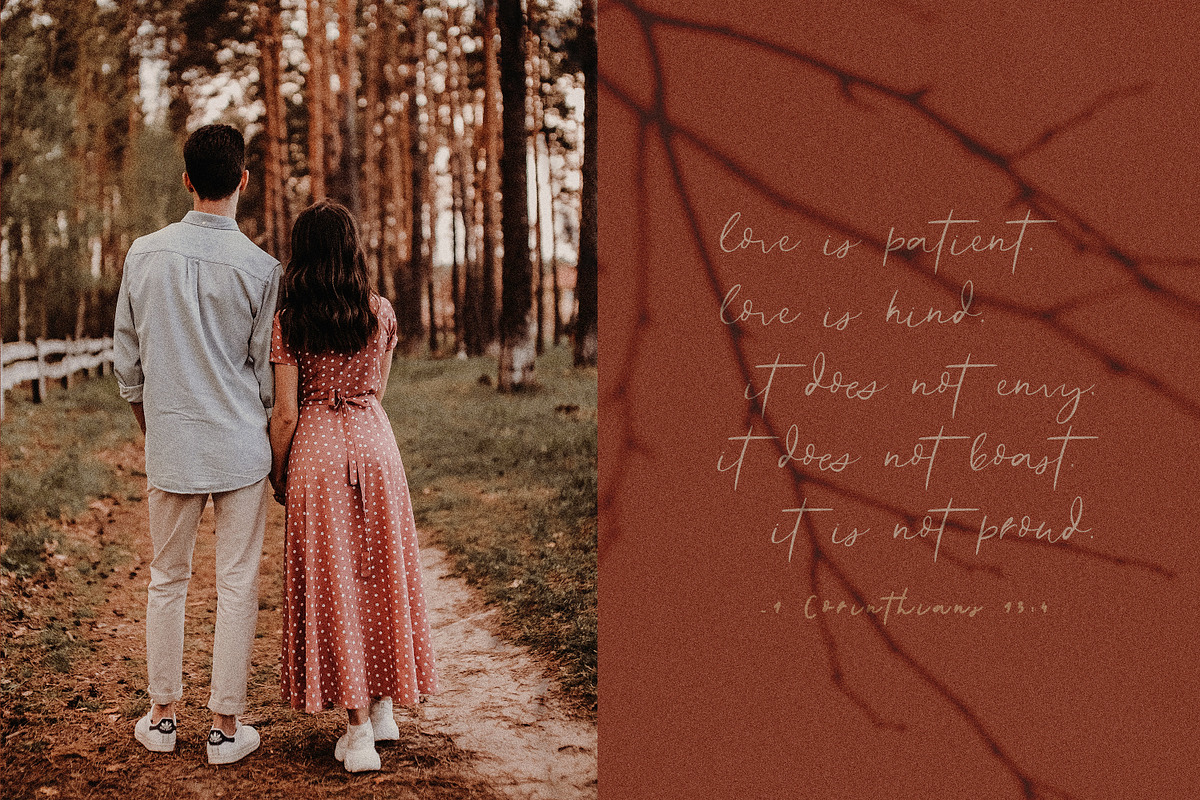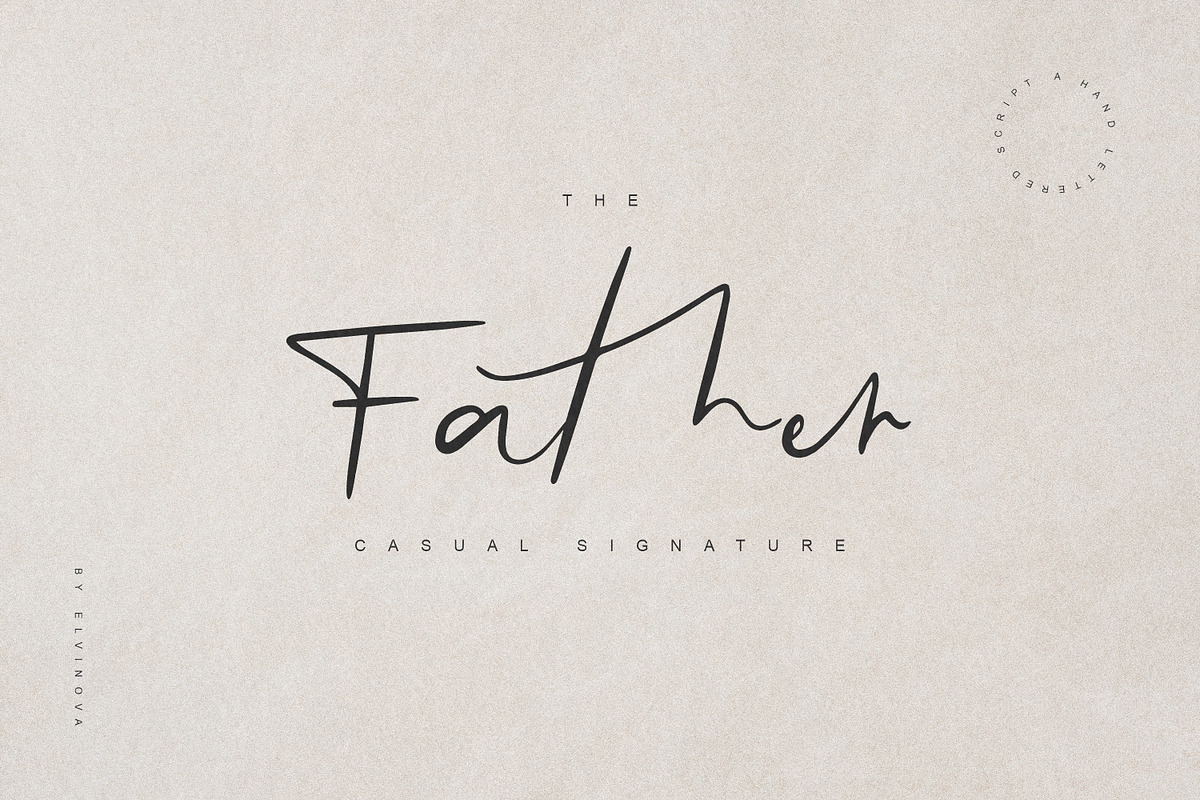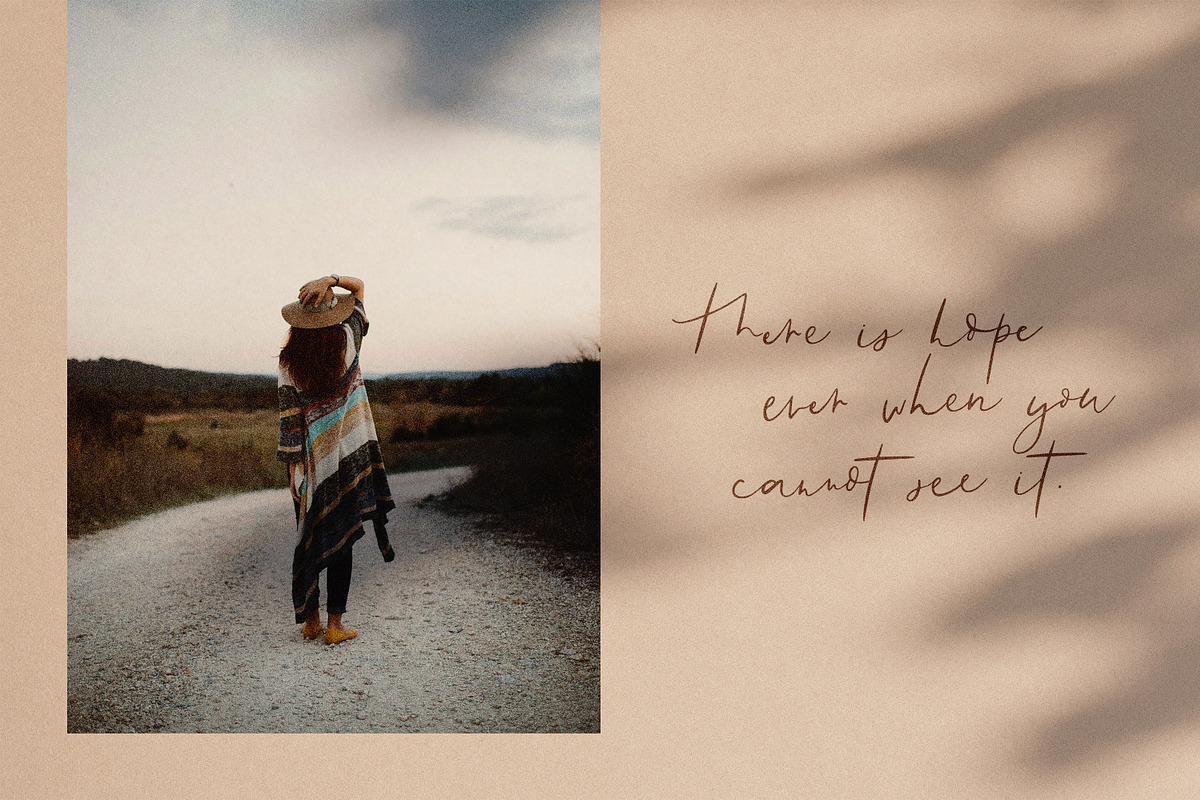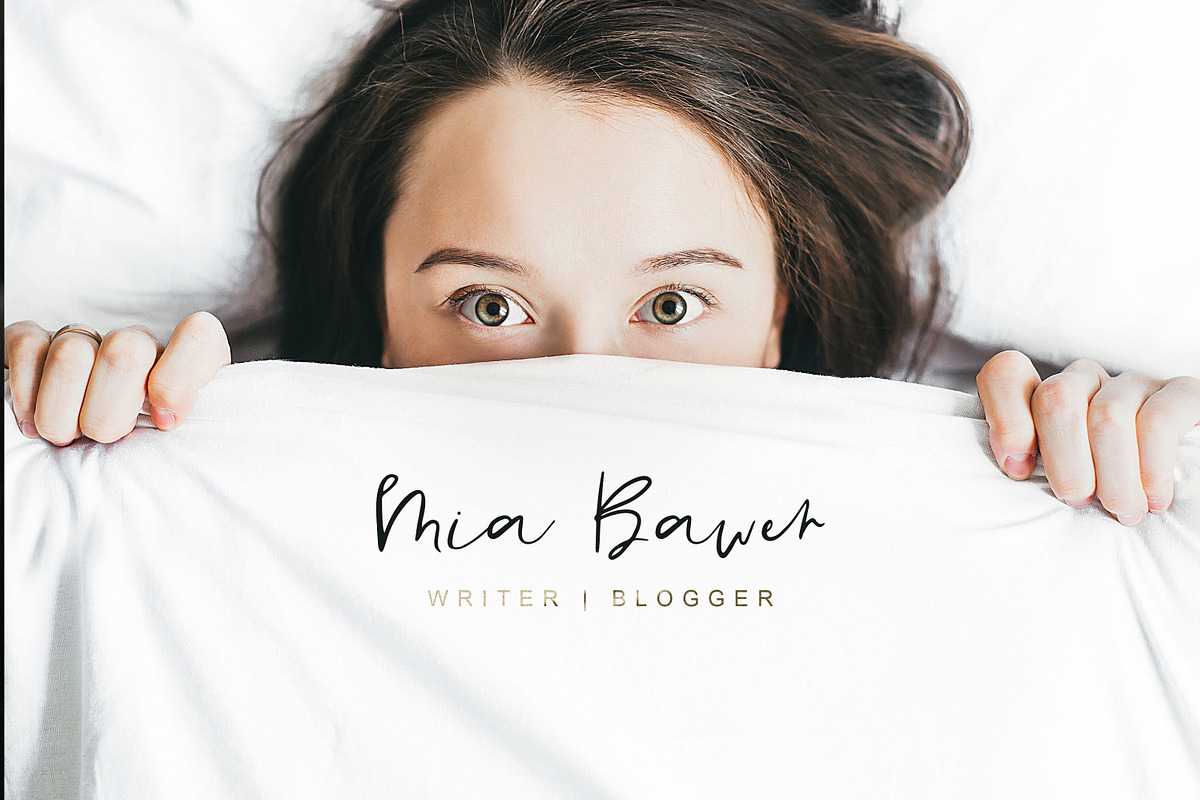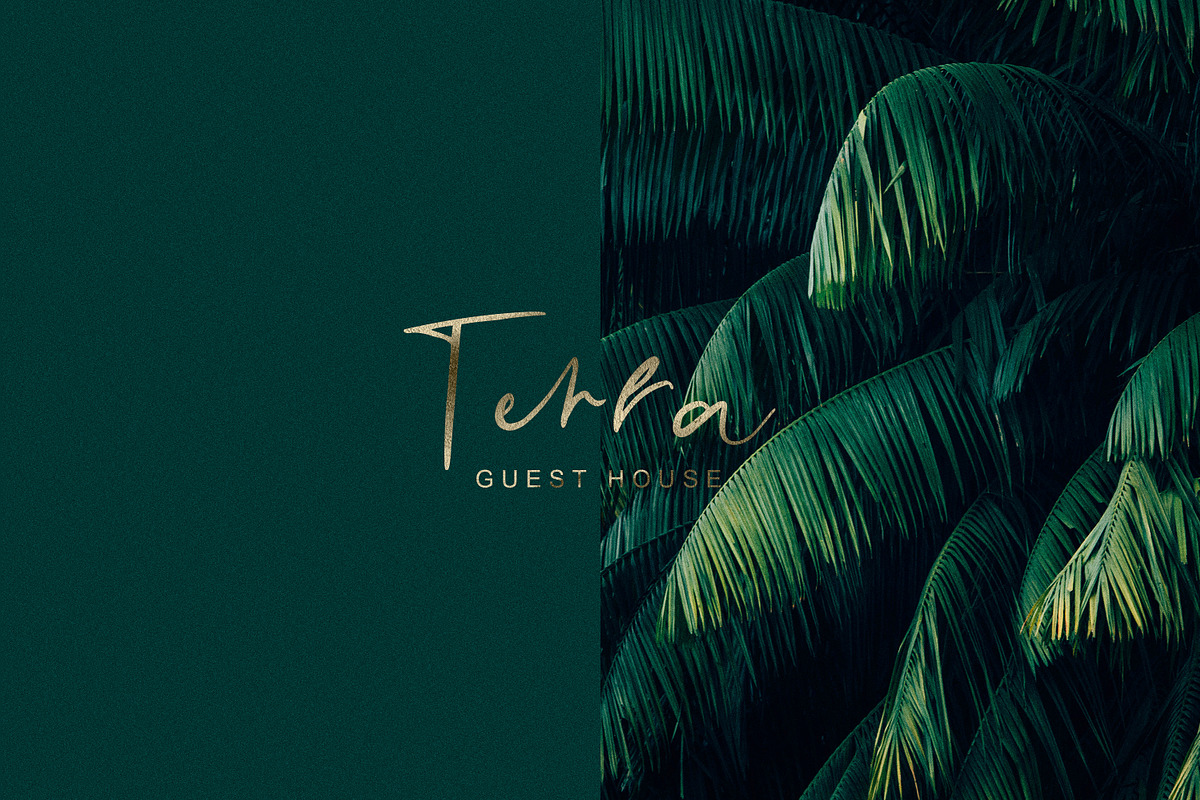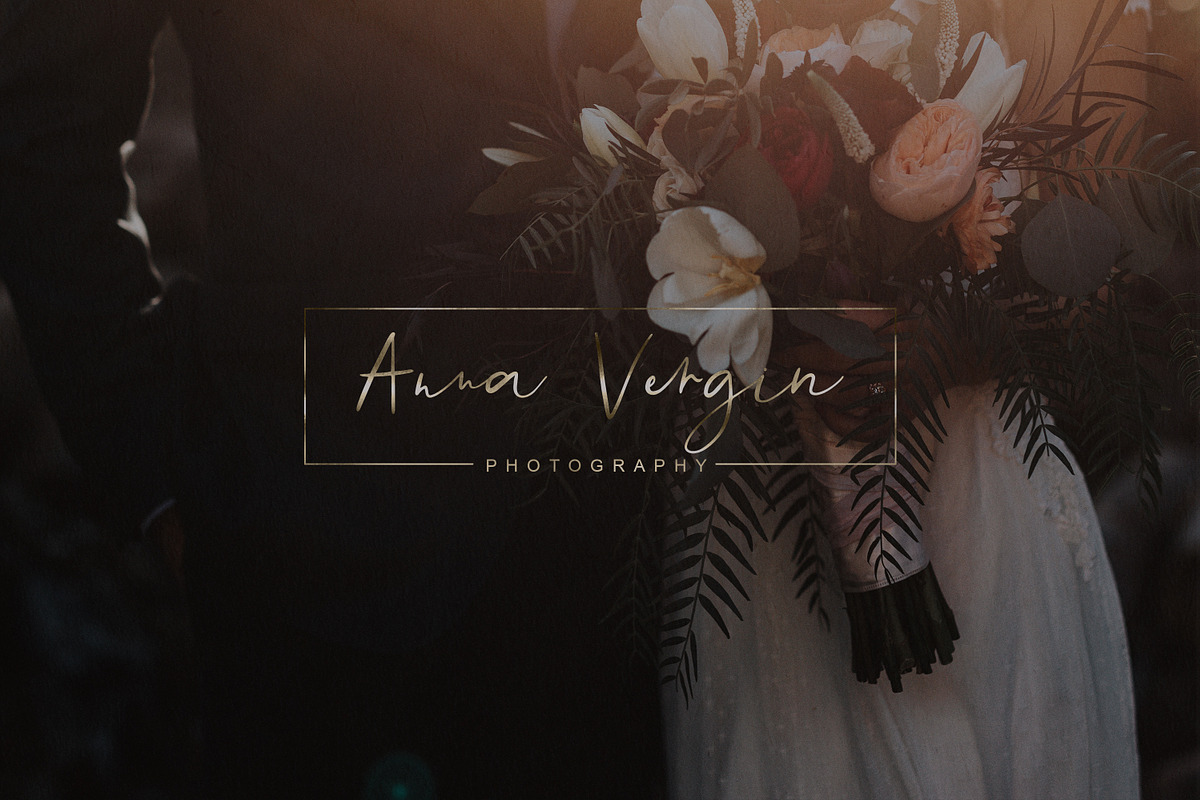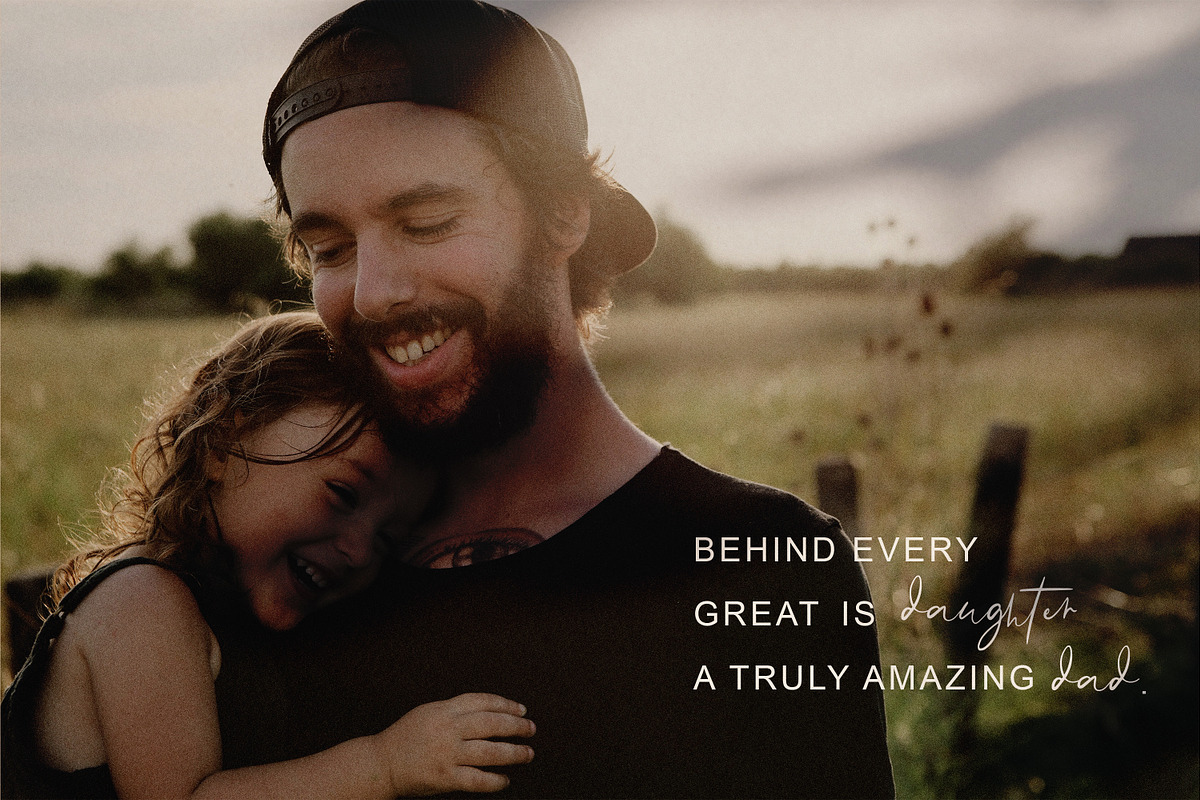
Father Casual Script Font
The Father is a casual script font with upper & lowercase letters, numbers & punctuation, ligatures, multilingual support. Free updates!
- The Father is a casual script font with upper & lowercase letters, numbers & punctuation, ligatures, multilingual support.
Father Casual Script Font by elvinova fits naturally into Branding, posters, packaging, typography.